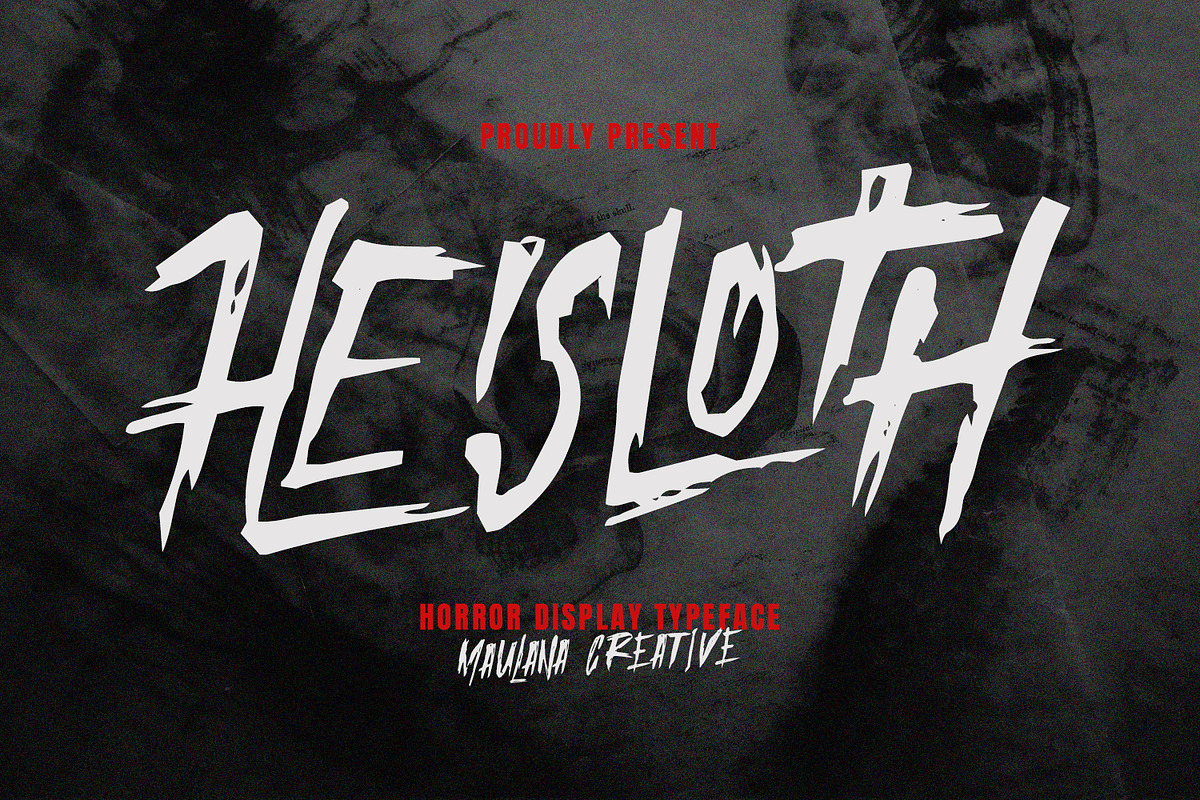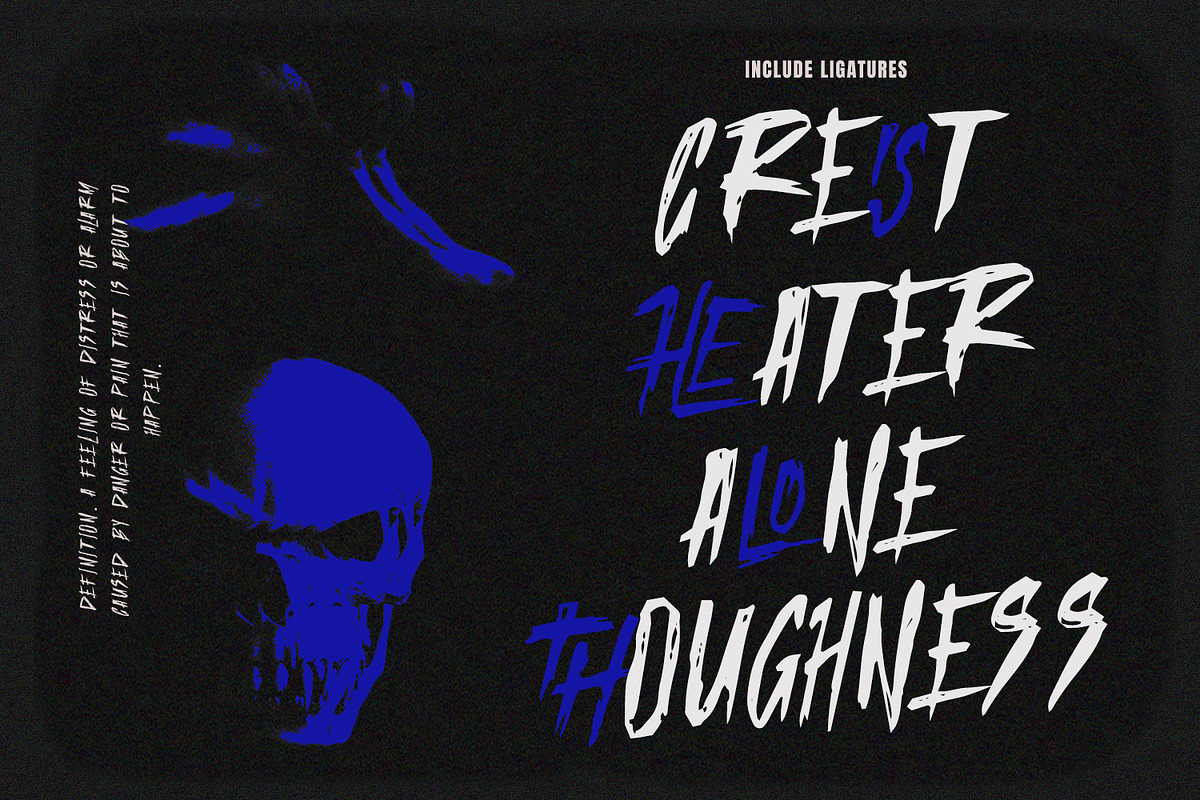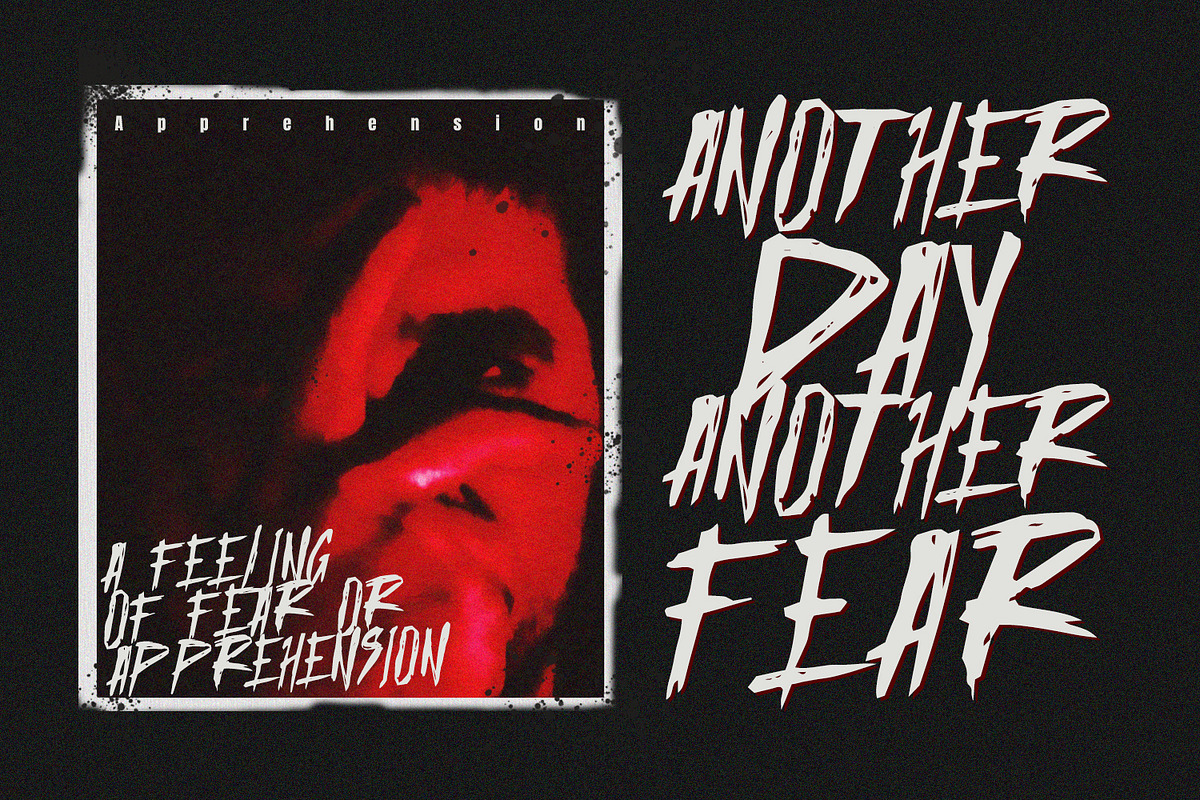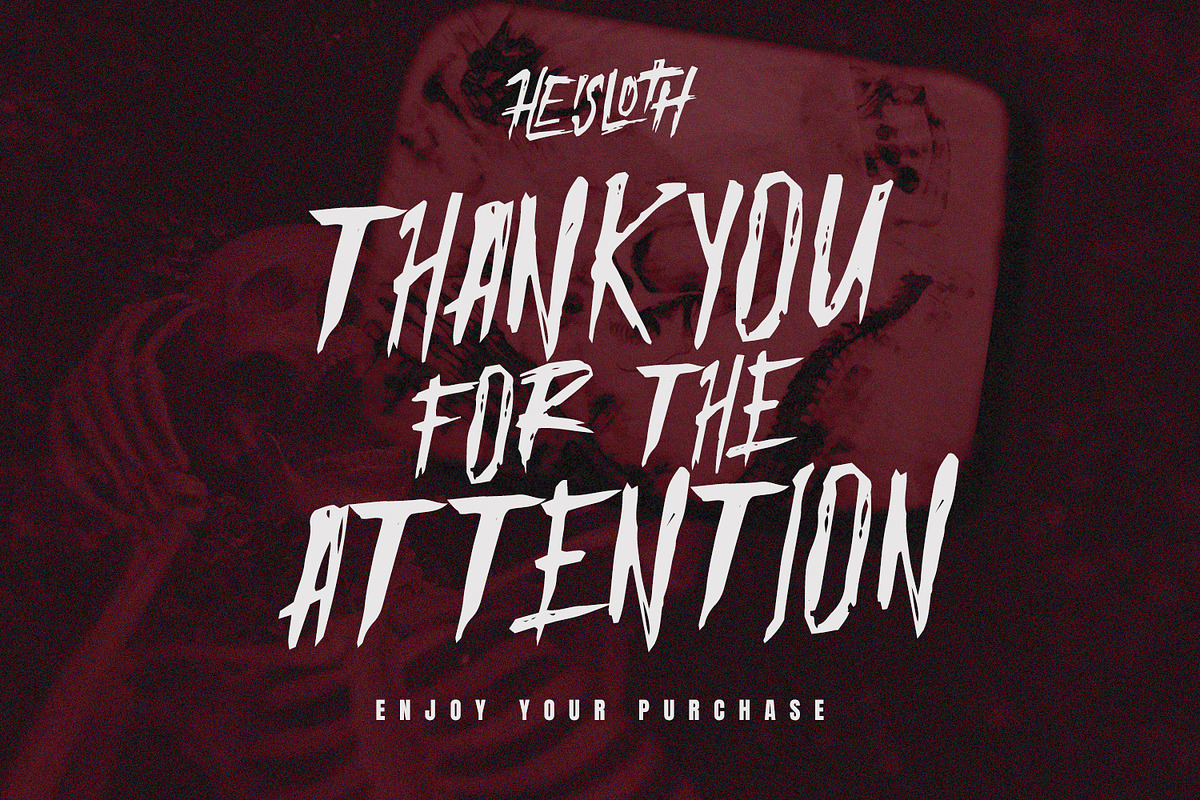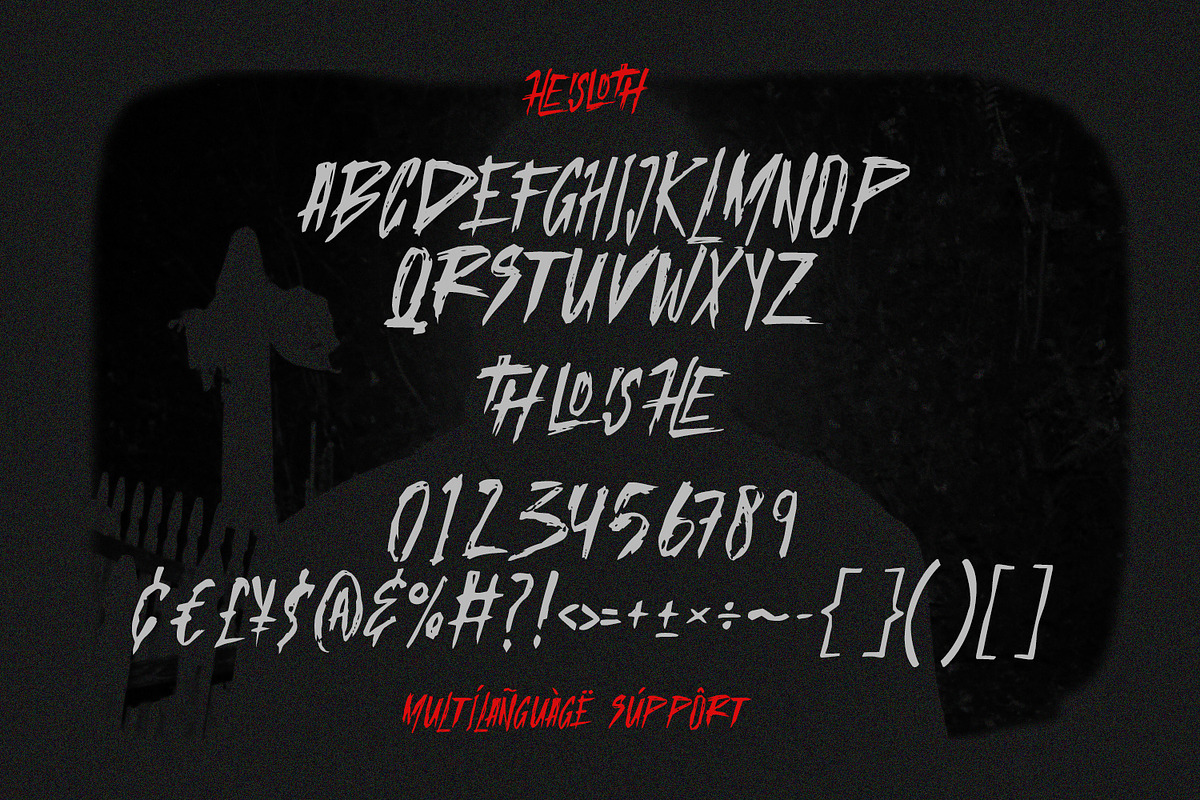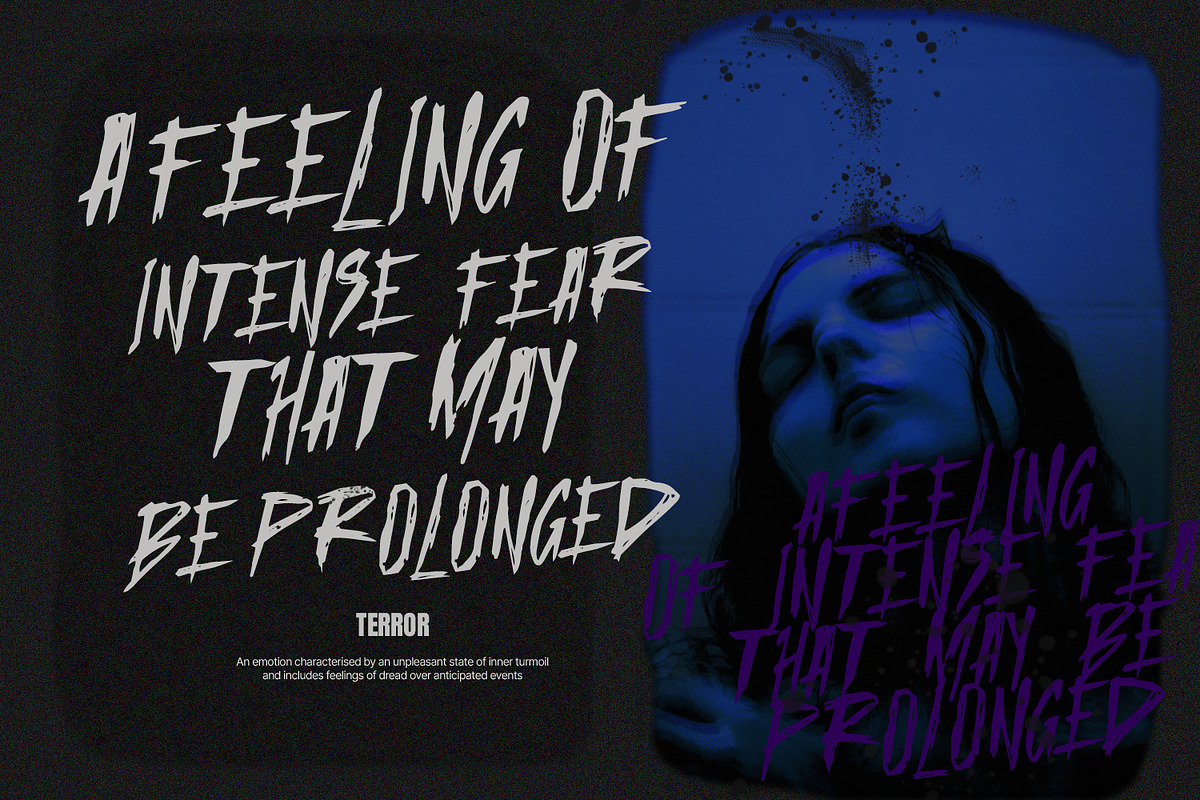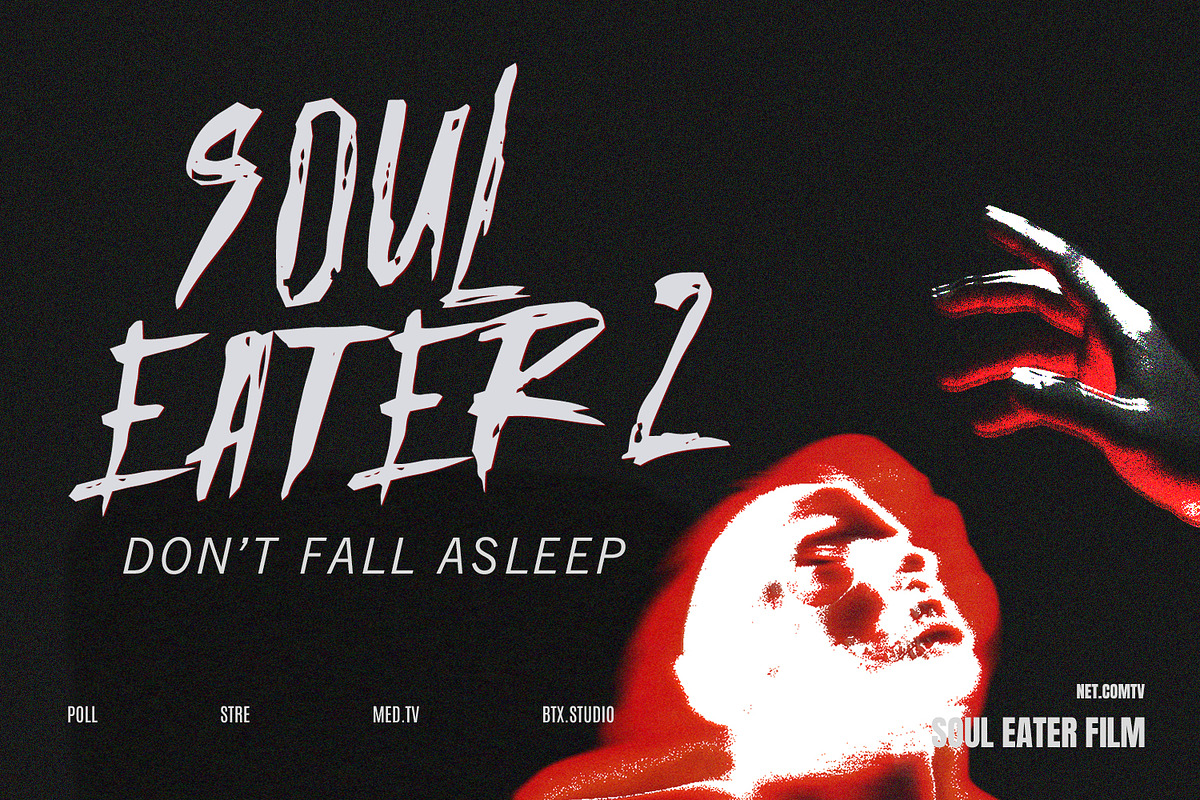
Heisloth Handmade Horor Brush Font
Give your designs an authentic brush handcrafted feel. "Heisloth Handmade Horor Brush Font" is perfectly suited to signature, stationery, logo, typography quotes, magazine or book cover, website header, flyer, clothing, branding, packaging design and more.